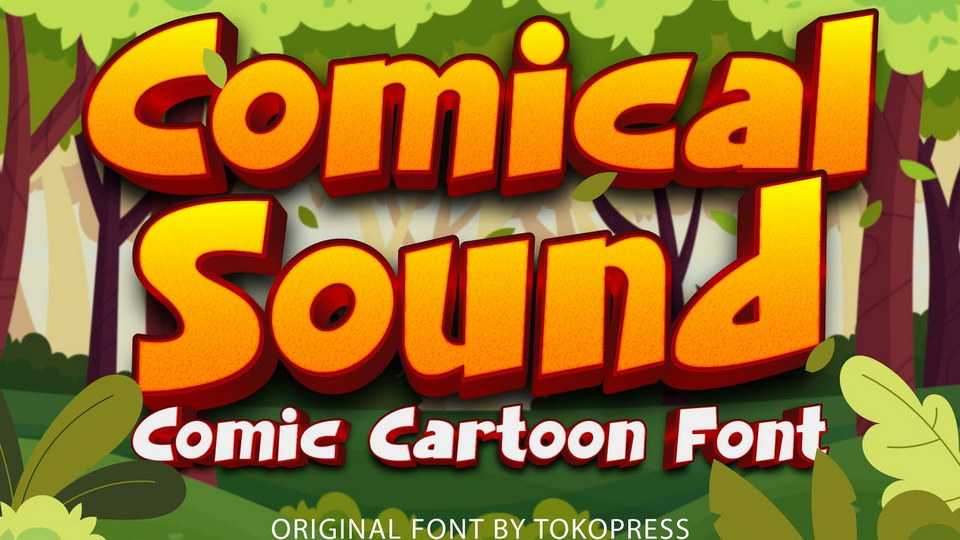
Download Comical Sound font, a comic children typeface. Sweet bouncy baseline with cartoon shape, the bold but playful sans serif shape will bring a lot of joy in kids hearts.